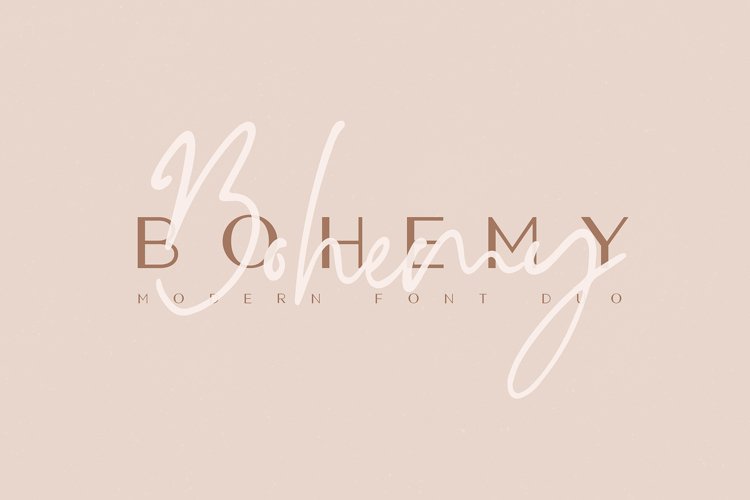
Bohemy Font Duo
Bohemy is an aesthetic font duo. Perfectly suited to logo, branding, signature, wedding cards, packaging design, stationery, website design and more.
• Bohemy Sans Serif font that contains upper and lowercase characters, number 0-9 and a range of punctuation and symbols (OTF, TTF, WOFF).
• Bohemy Script font that contains upper and lowercase characters, number 0-9 and a range of punctuation and symbols (OTF, TTF, WOFF).
Multilingual support.